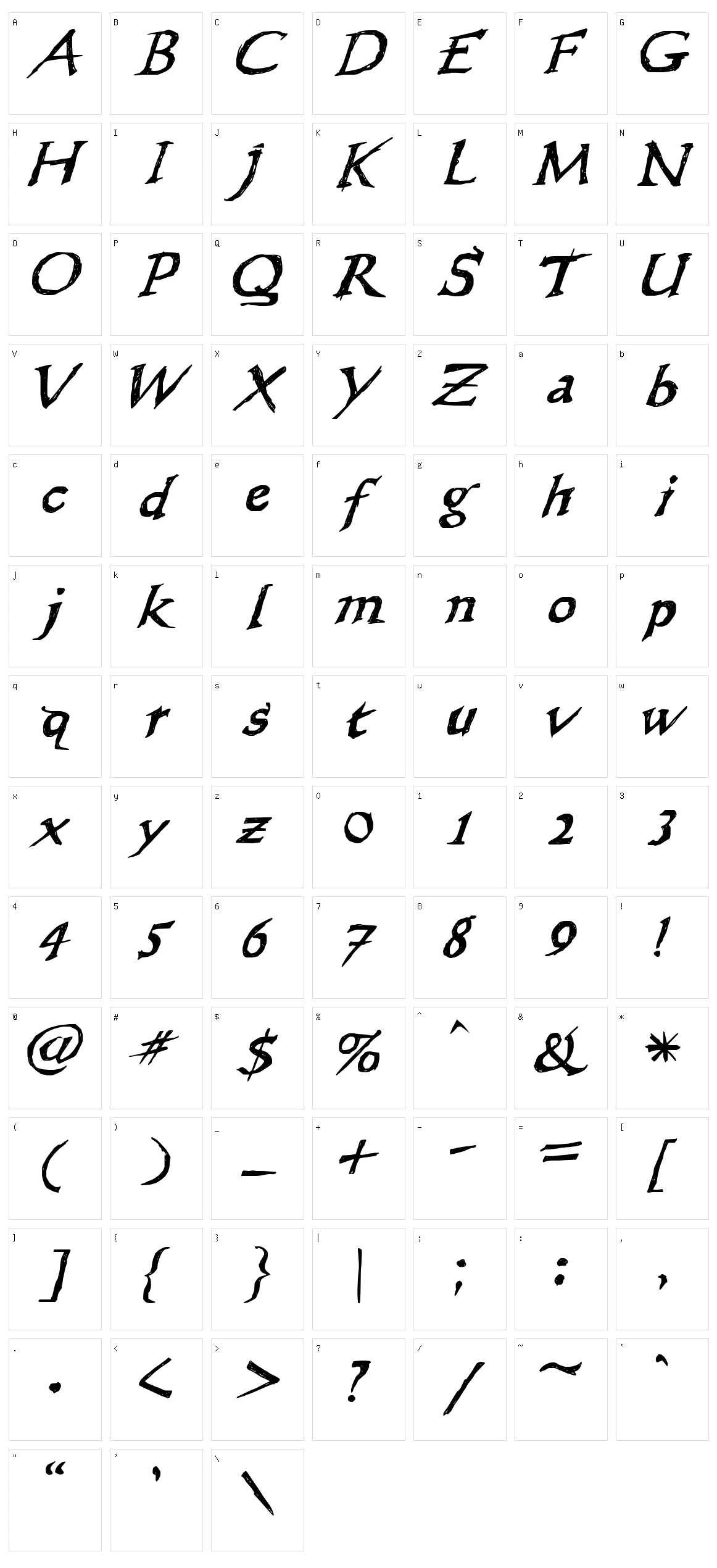
The Scribble Flinger font was created for an upcoming iOS
game, to be released sometime in early 2012.
This new version of the font includes some very cool OpenType
magic - if you enable contextual alternates, you will get a
spattered, smudged version of the font. These smudges are somewhat
dynamic, so if you type a word with repeating letters, you wonât
get the same smudge for each letter.